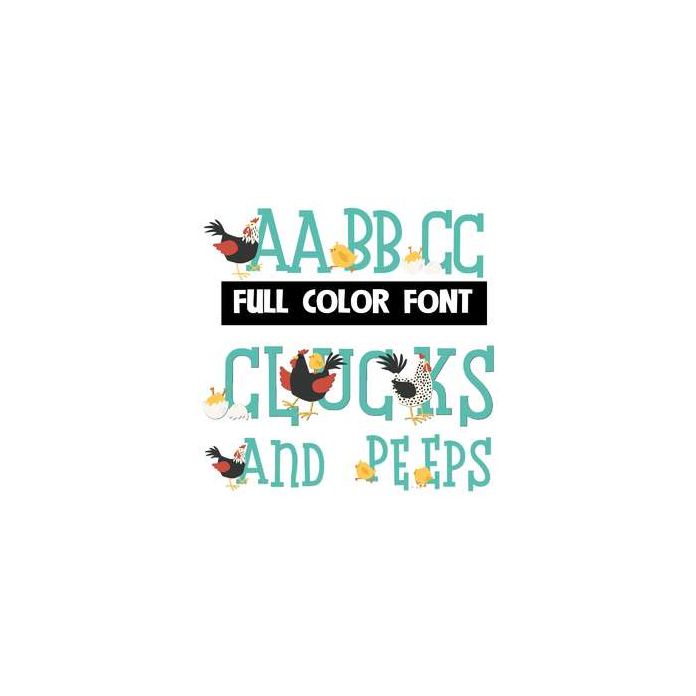
This full-color font features chickens and chicks on the uppercase and numbers and a lowercase without. This font works best for titles, displays, posters and more. Please note color fonts will show as black in non compatible programs. This font type is compatible with Silhouette Studio.